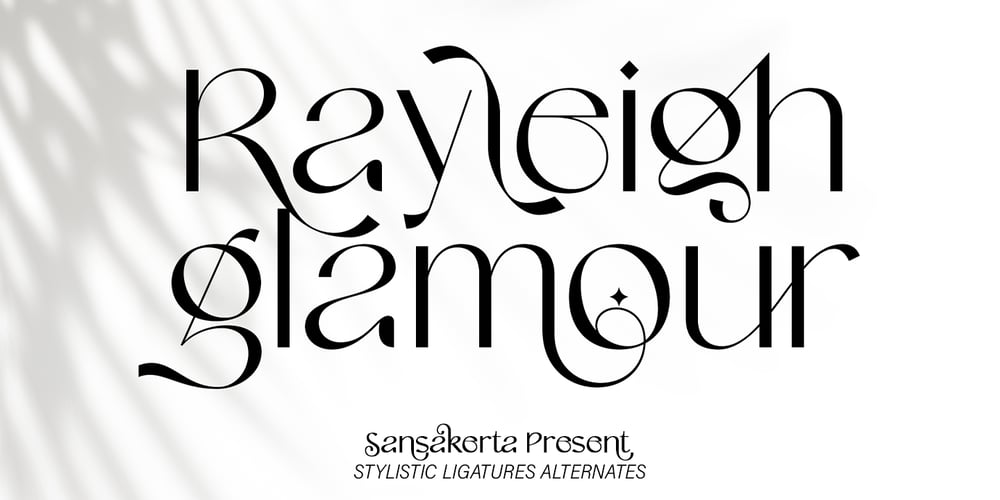
Rayleigh Glamour Font Family was designed by Dean Nugraha and published by Sansakerta. Rayleigh Glamour contains 1 styles and family package options. Rayleigh Glamour is a luxurious font with a wealth of ligature in it. with a very detailed neatness. This font is perfect for your work to look elegant and luxurious.Try this font soon and have a nice day.Rayleigh Glamour is also included full set of:uppercase and lowercase letters multilingual supportnumeralspunctuation ligature set direction ligatureWish you enjoy our font and if you have a question, don’t hesitate to drop message & I’m happy to help ๐